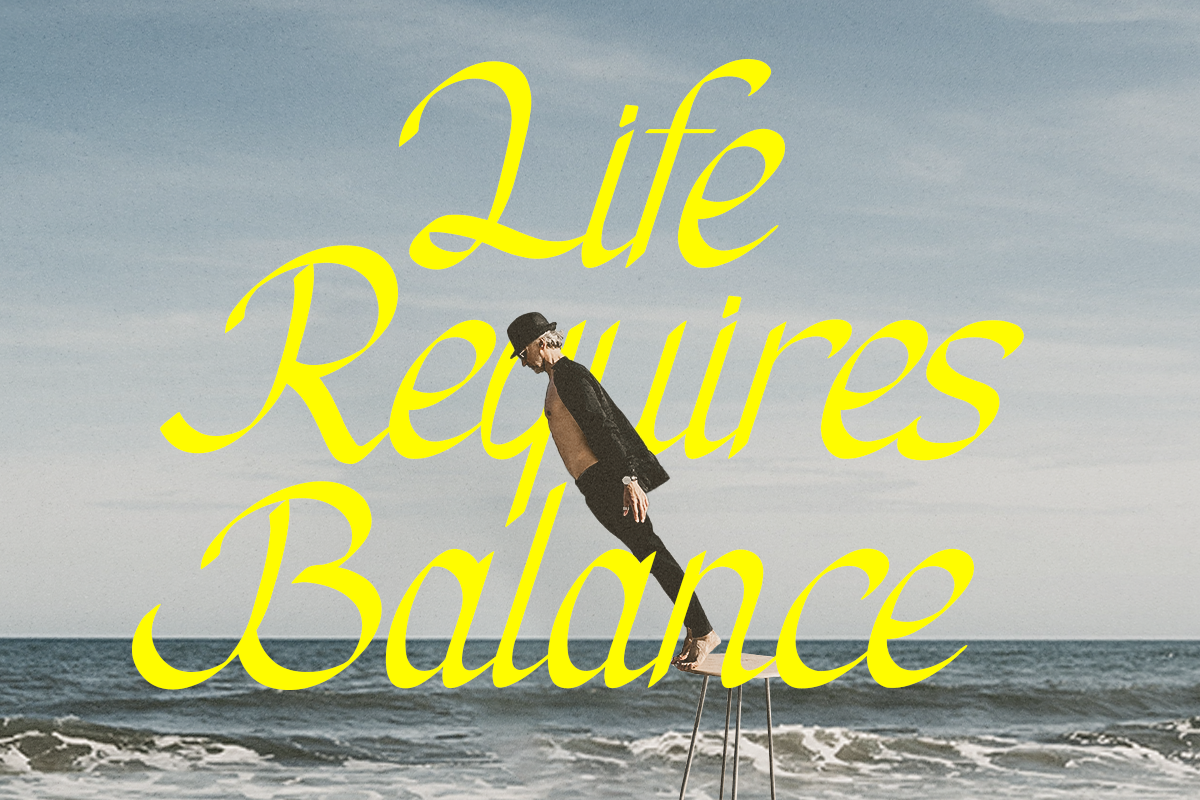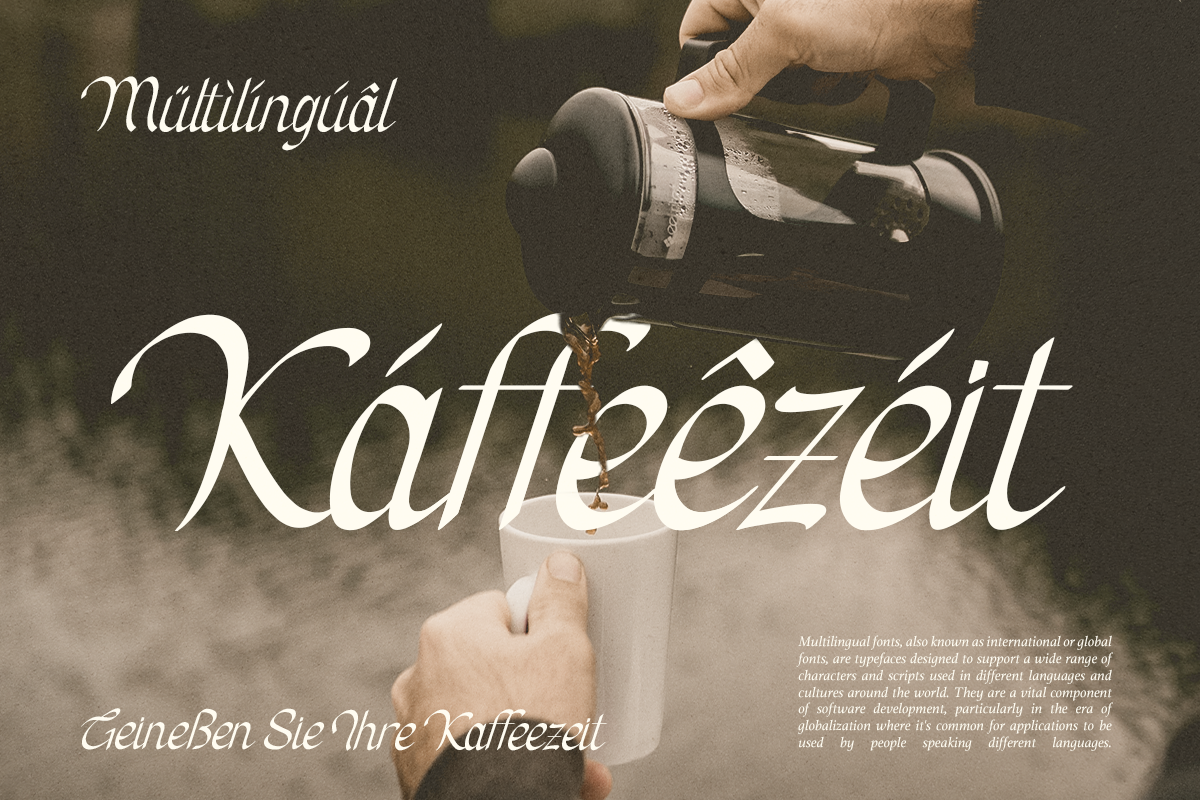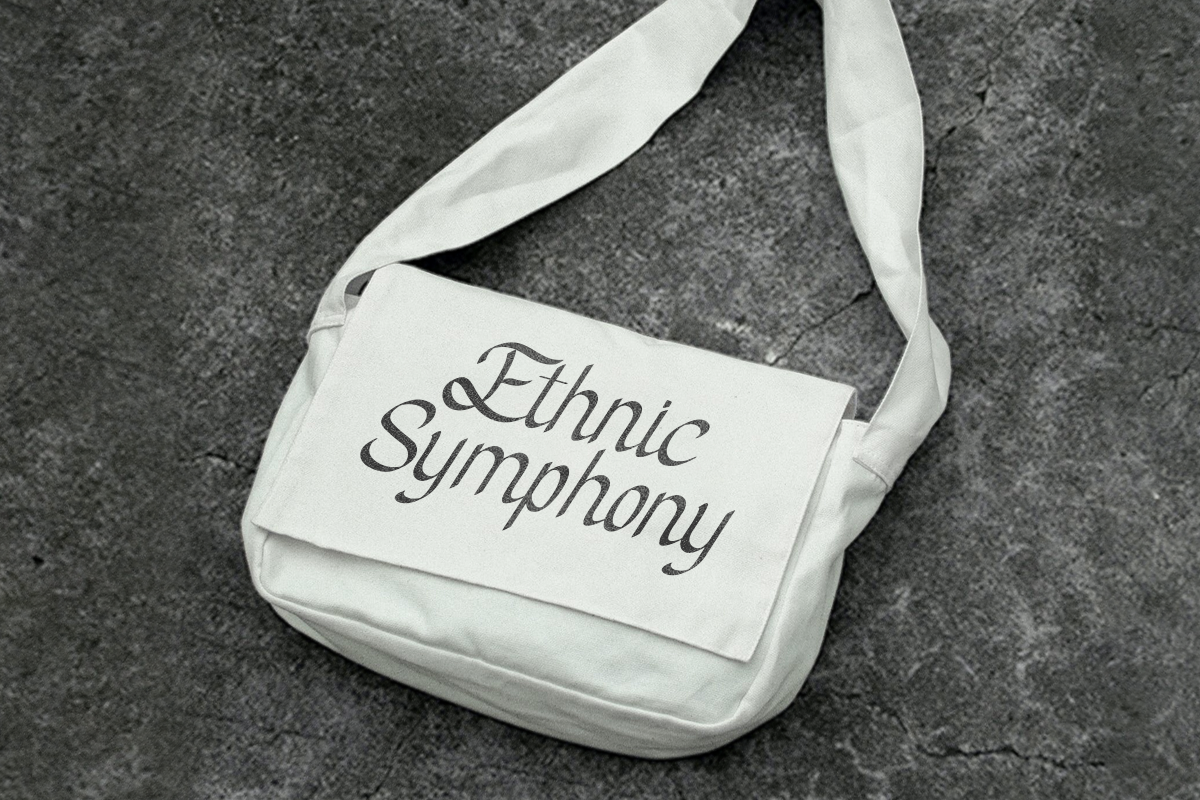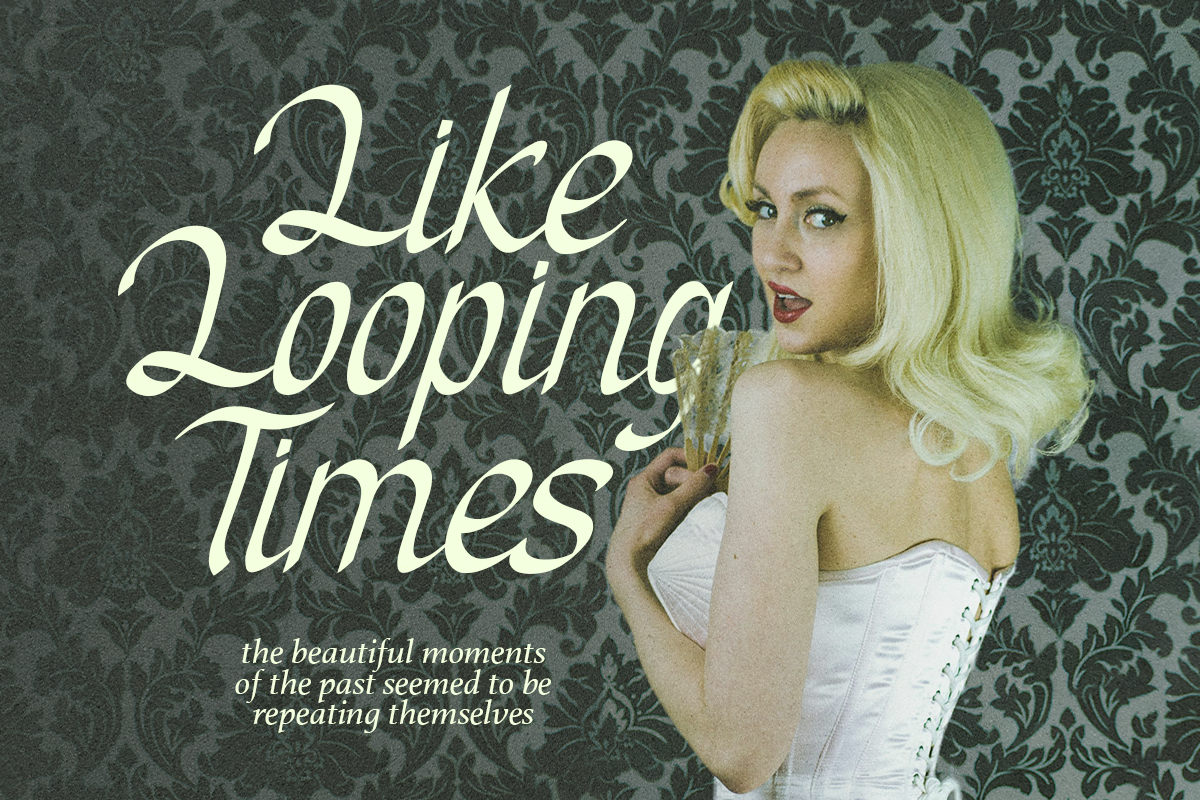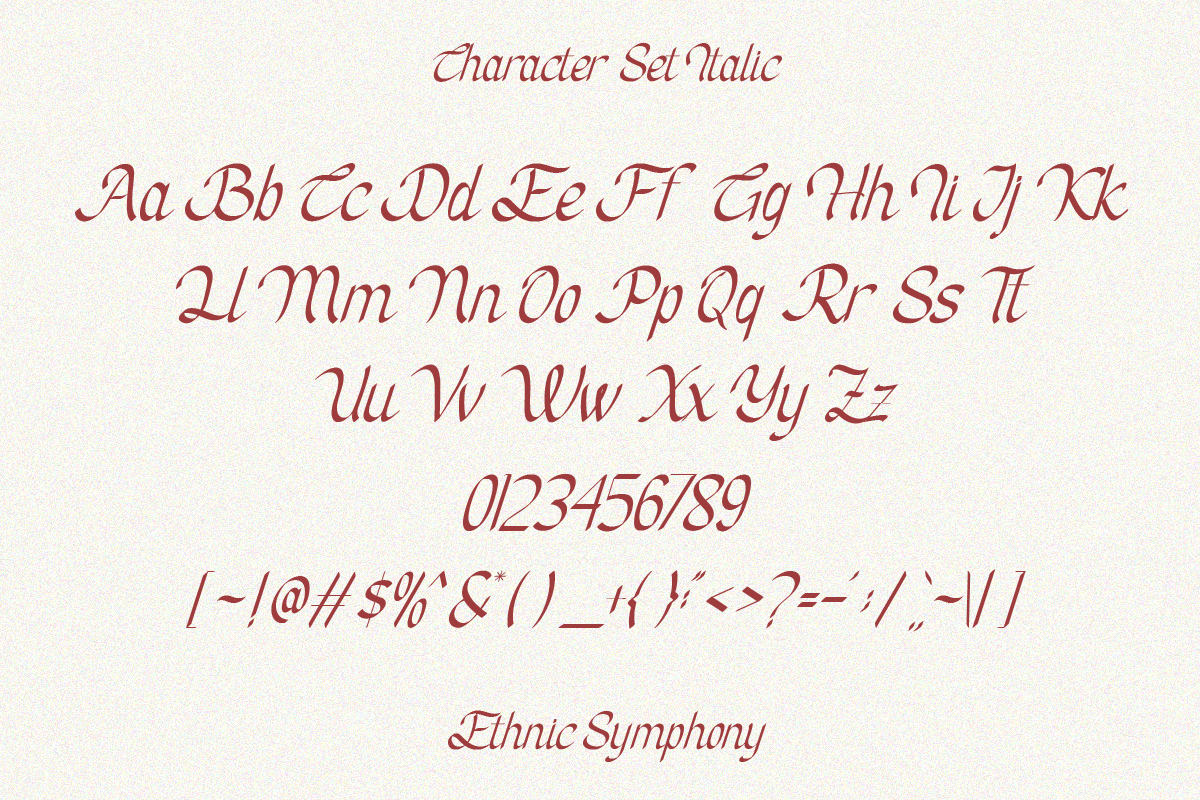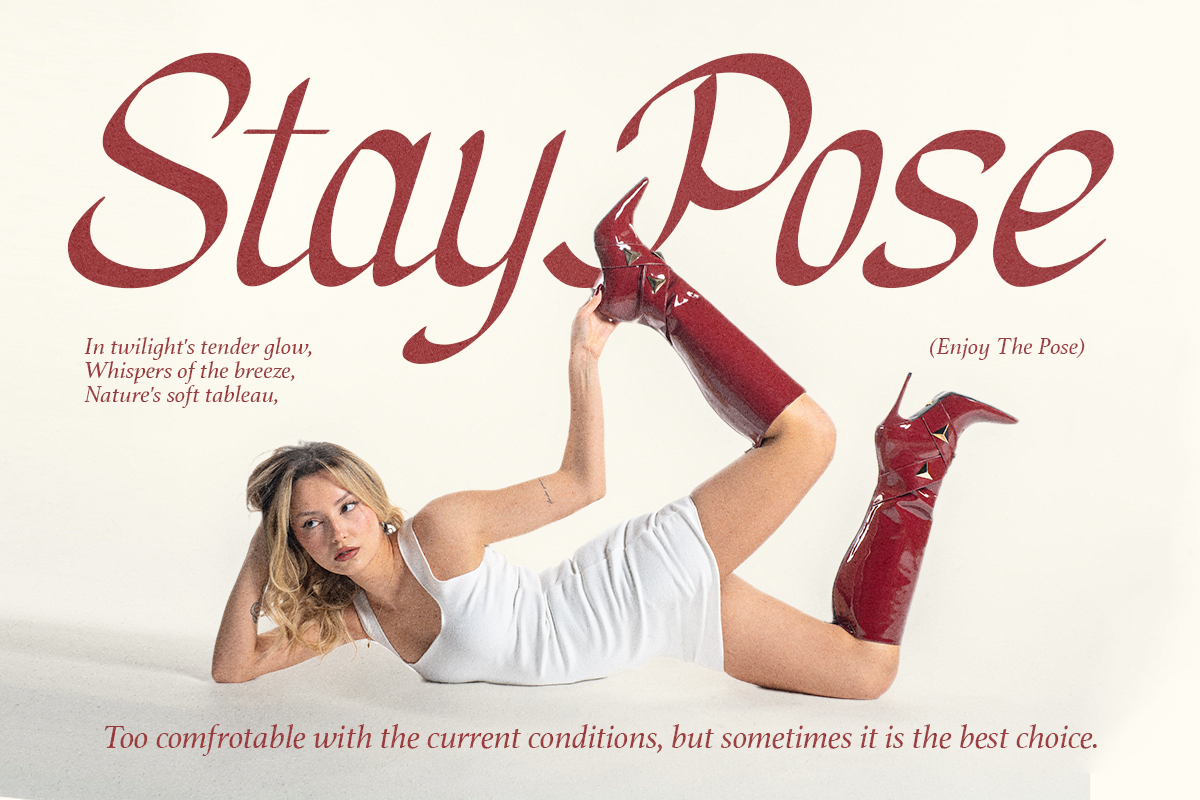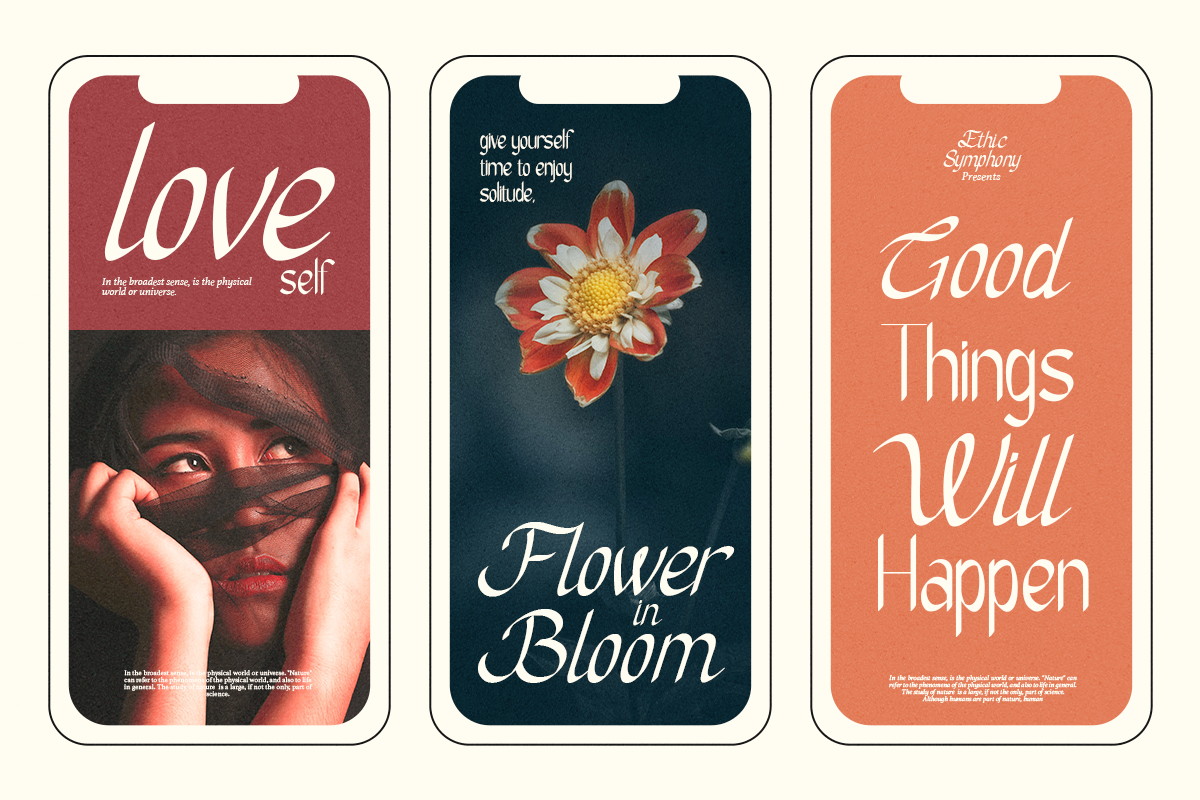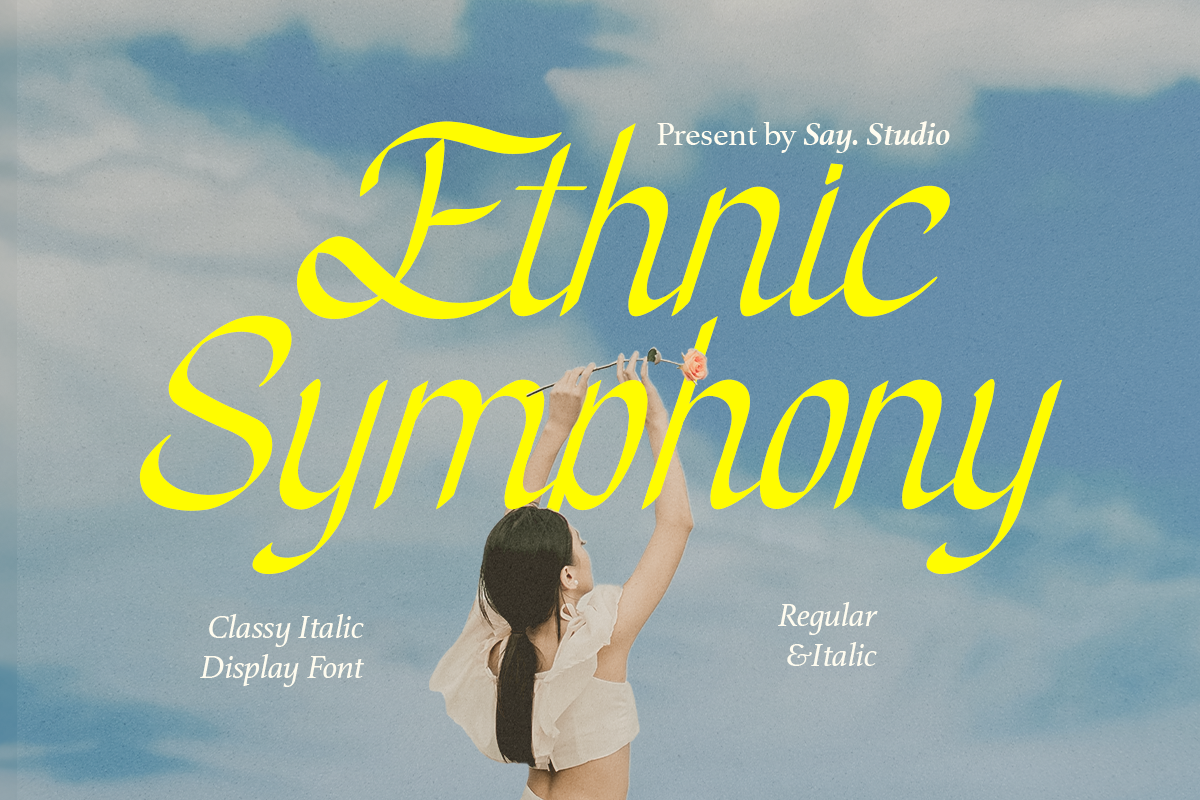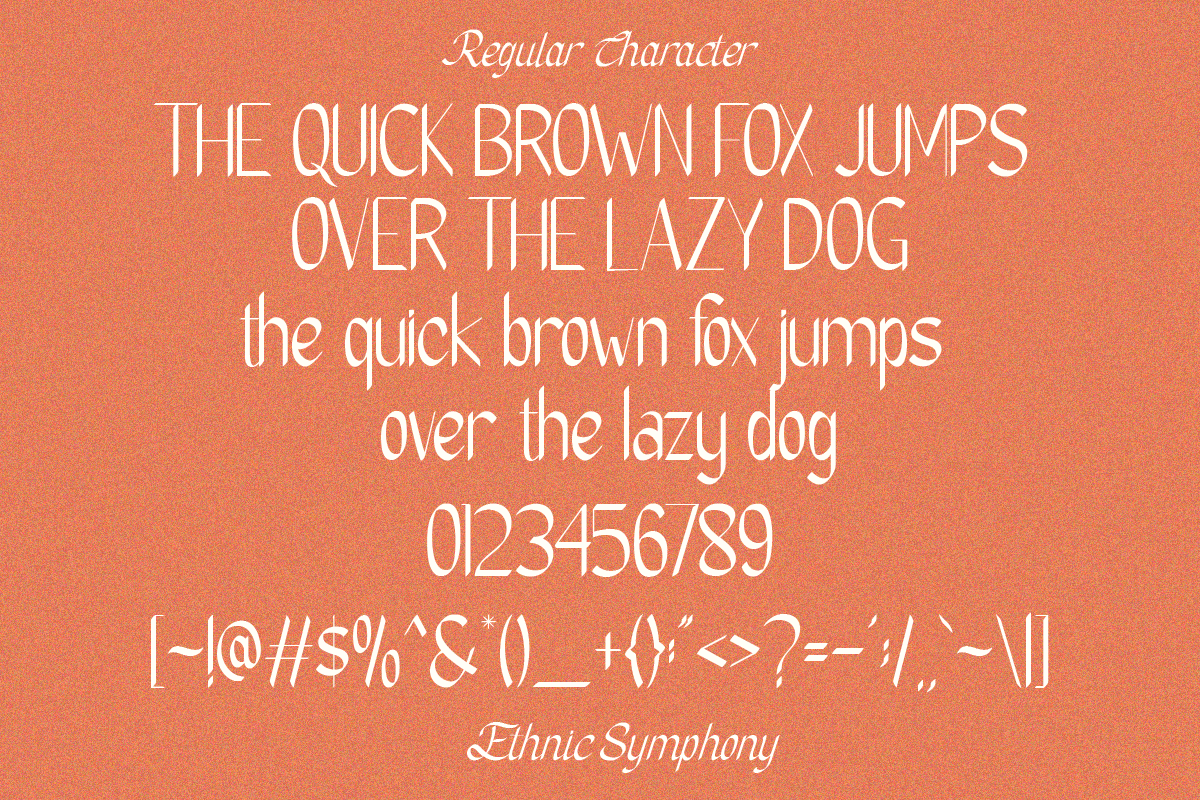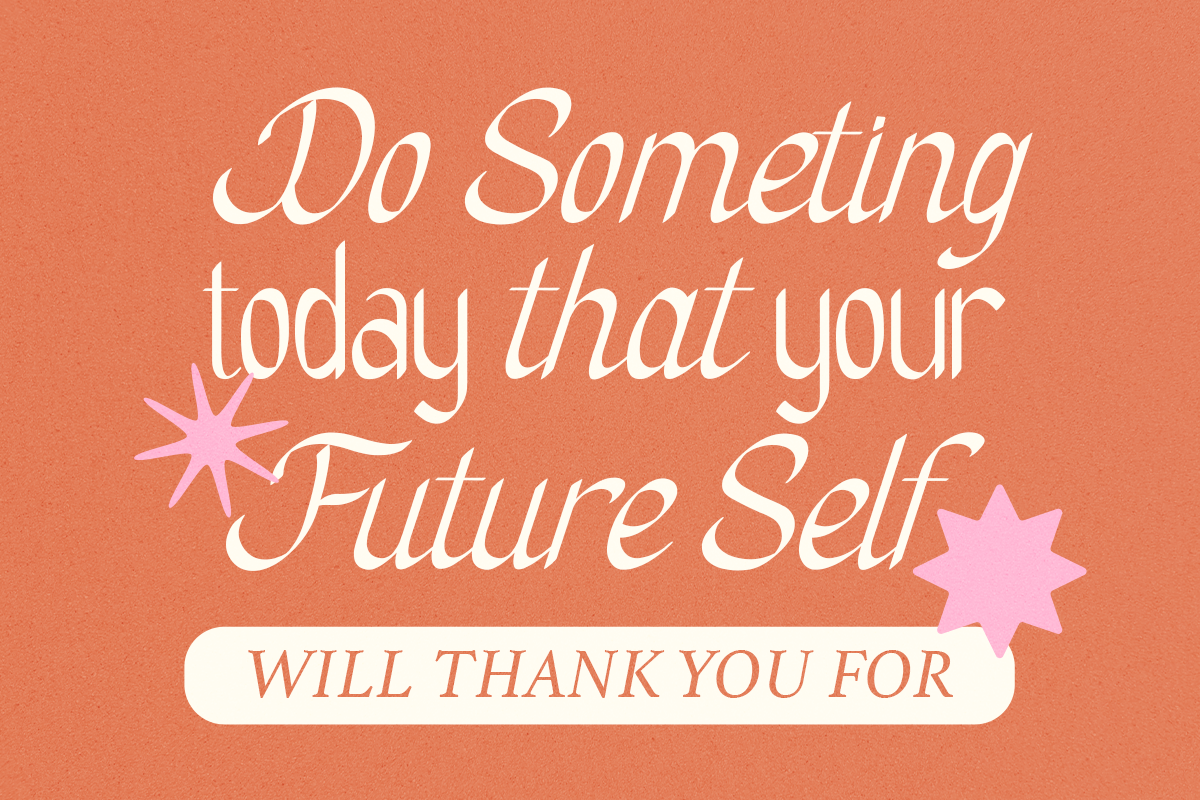
Ethnic Symphony - Duo Font
Say hello to " Ethnic Symphony ", a classy italic that lives for being the center of attention. A unique mix of retro style calligraphy creates a memorable typeface with a romantic flair, Ethnic Symphony also features a regular version in a sans serif font which pairs very well with the Italic versions. Good choice for phenomenal go-to for any luxe branding or type-focused project.
- Foreign language support